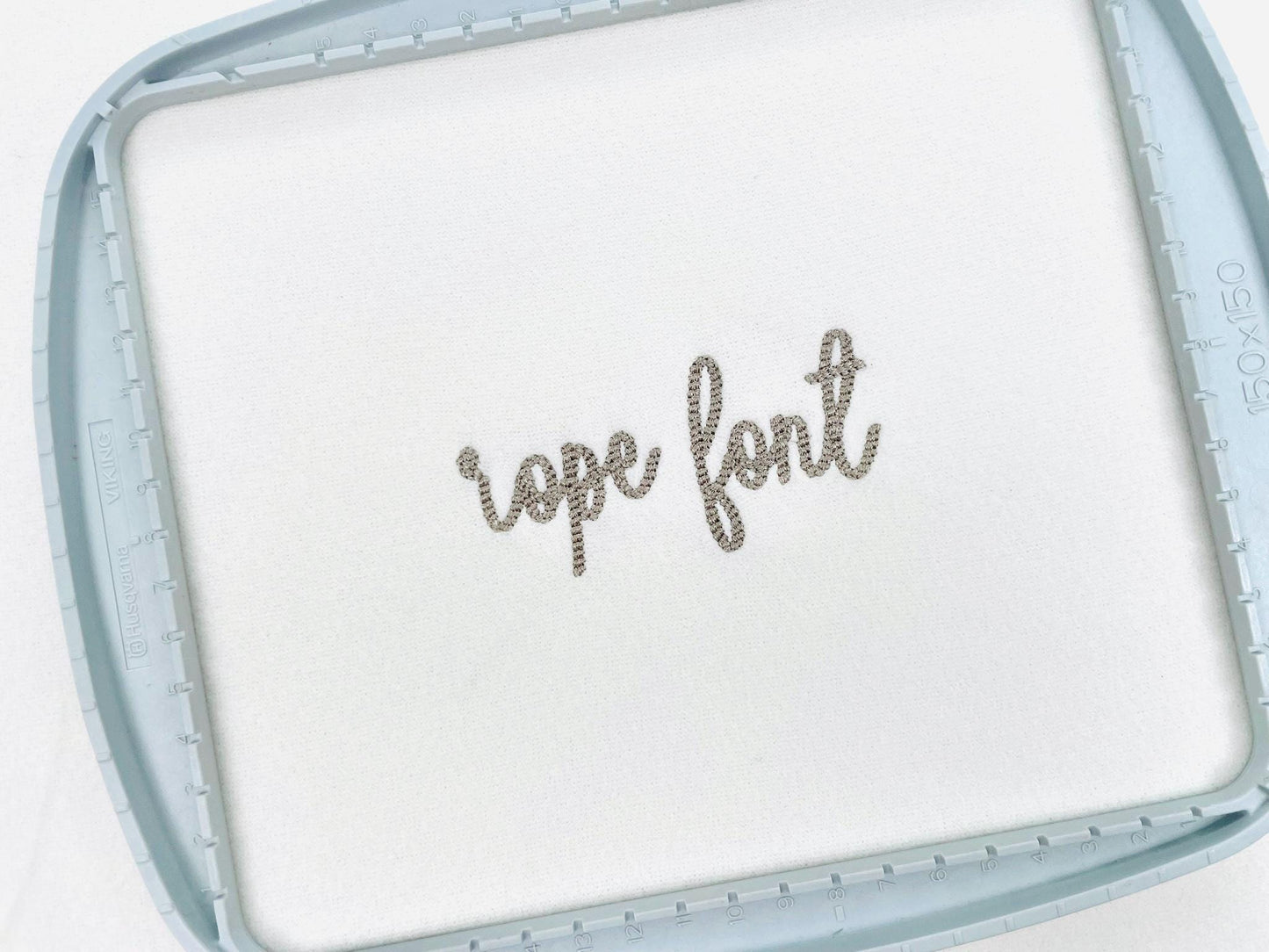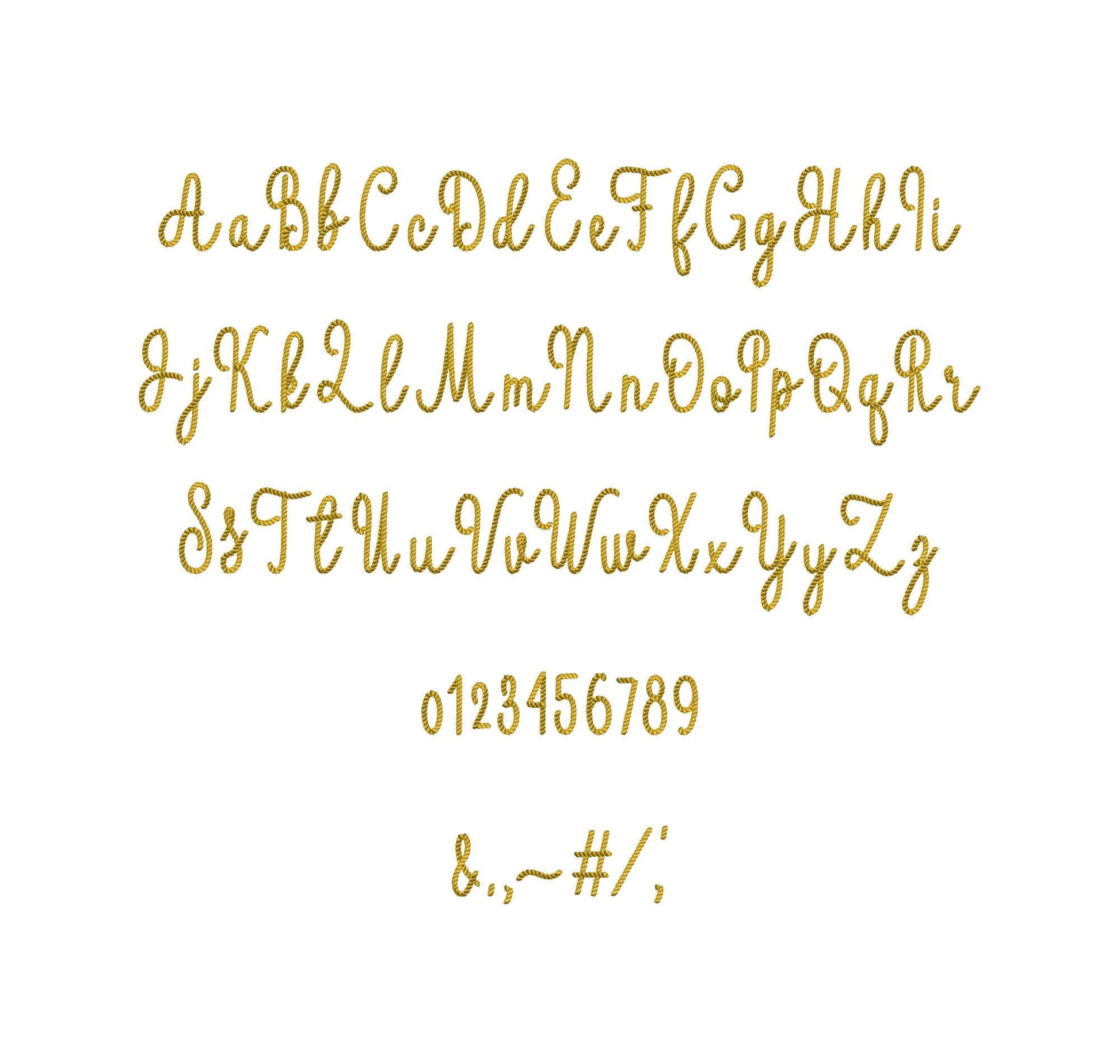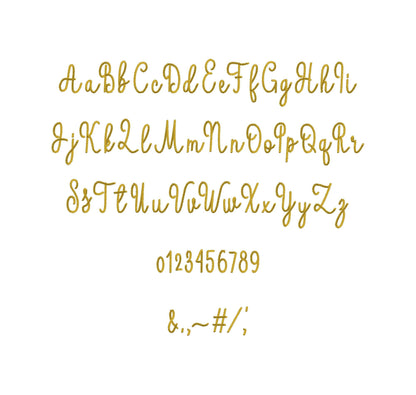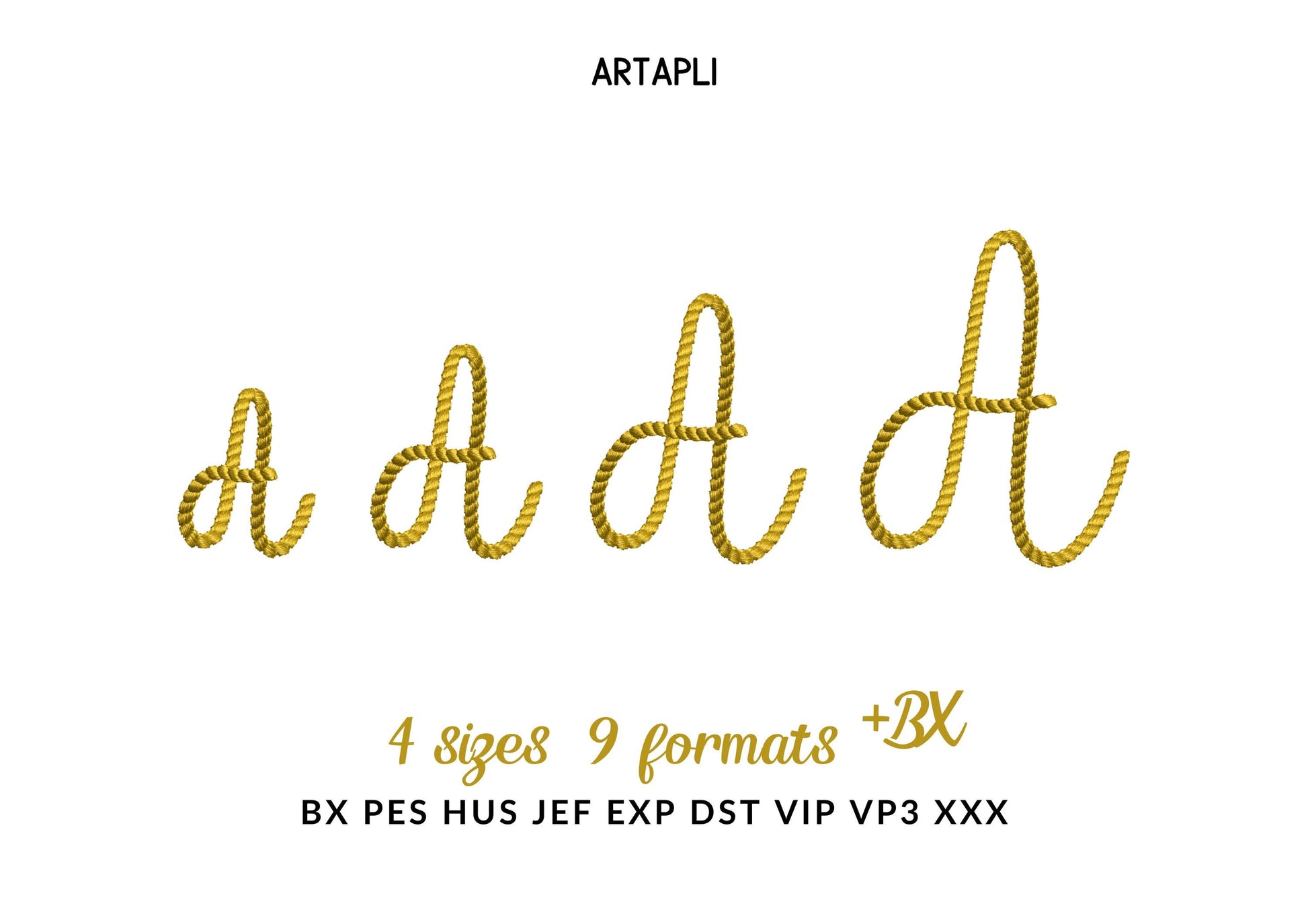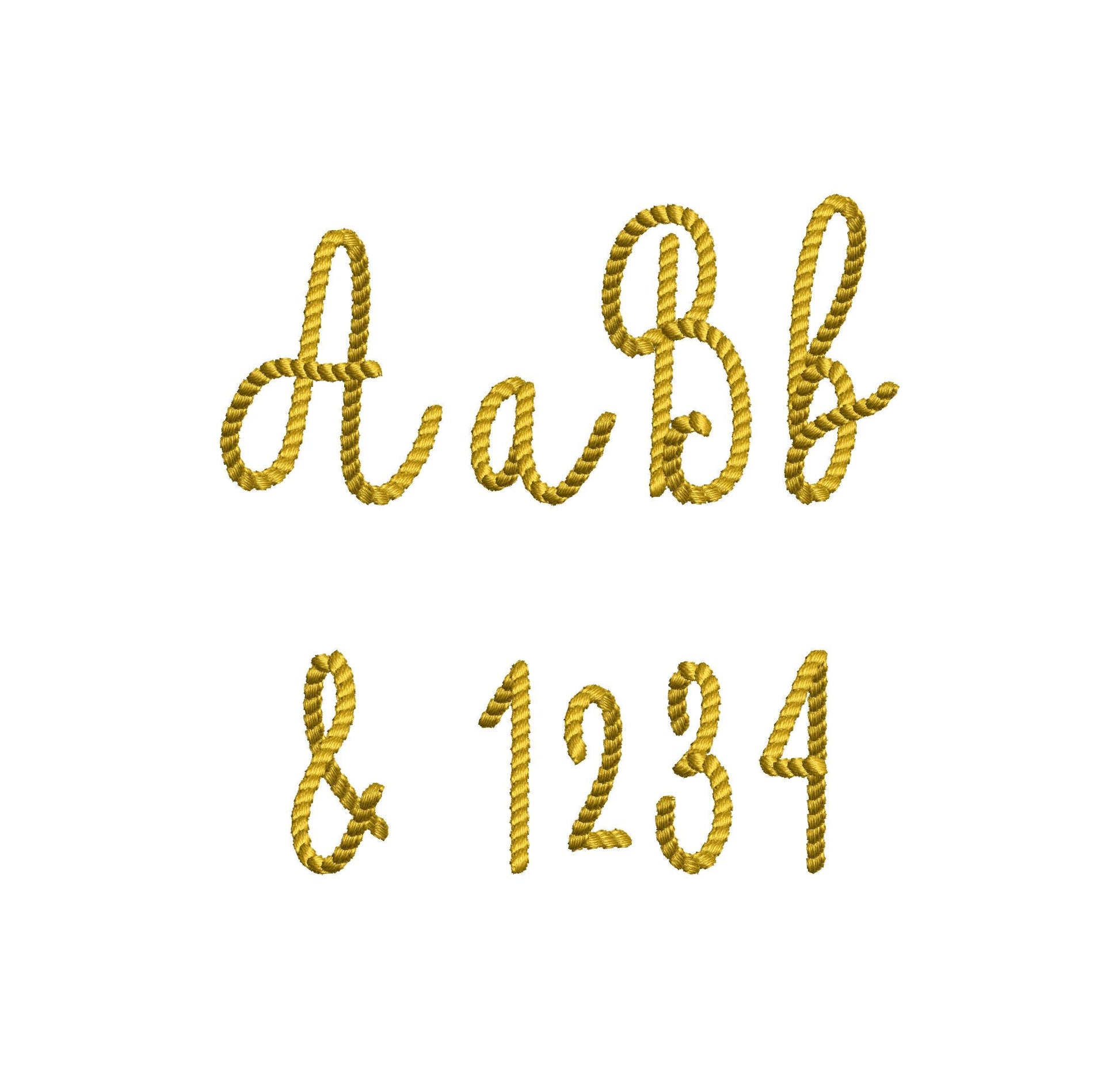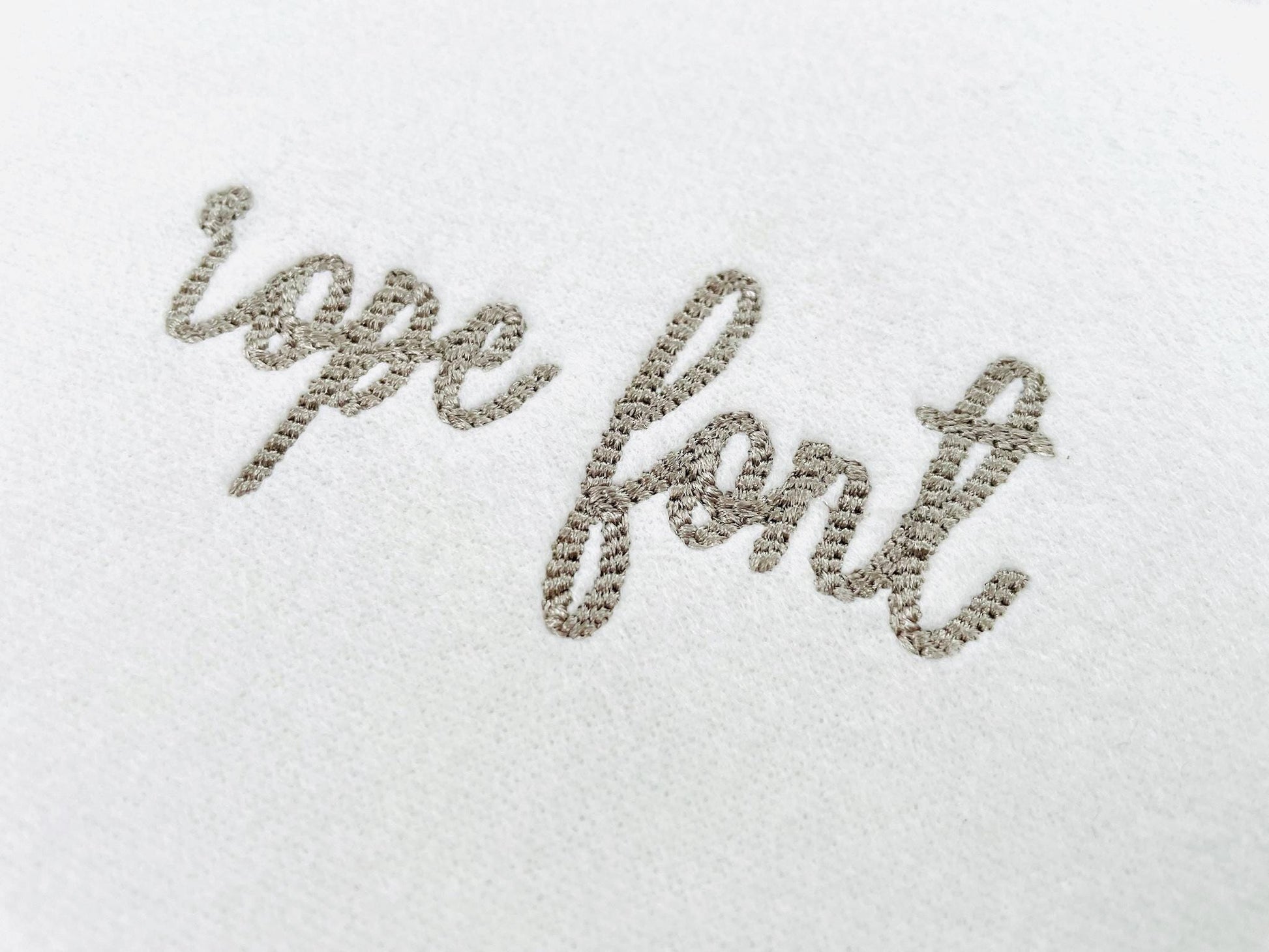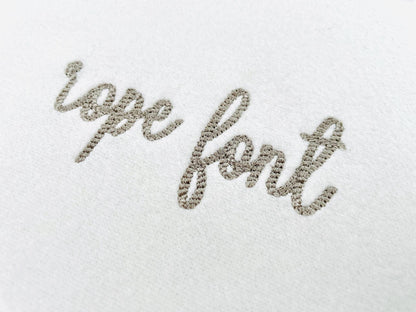
Narrow Mini Rope Font Burlap
Or click to open the linkA narrow mini rope stitch script font with a burlap-rope texture. Great for cowboy names, small monograms and kids' clothes.
The letters come in four mini sizes: 1, 1.3, 1.6 and 2 inches. A rope stitch gives the narrow letters a twisted, textured look. Includes uppercase and lowercase letters A to Z, numbers 0 to 9 and punctuation.
- Narrow mini rope stitch script font
- 4 sizes: 1, 1.3, 1.6 and 2 in